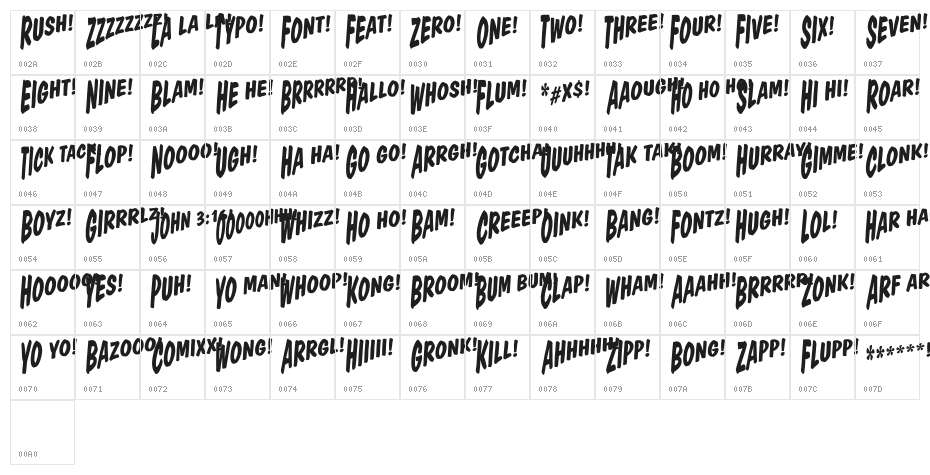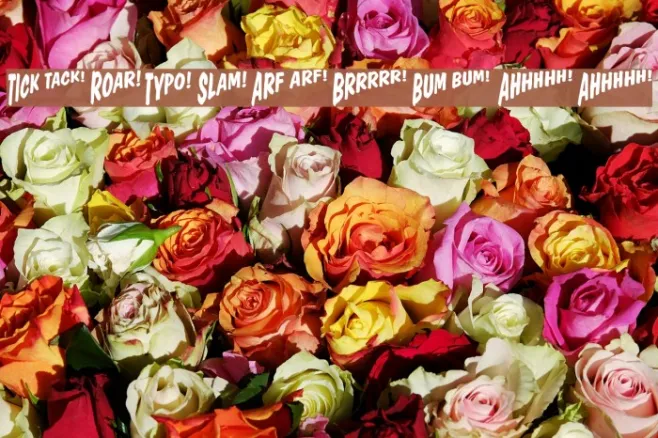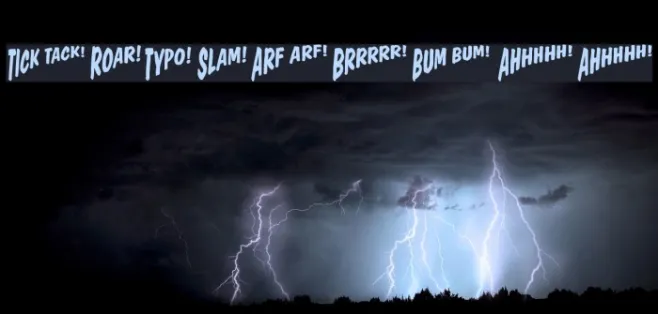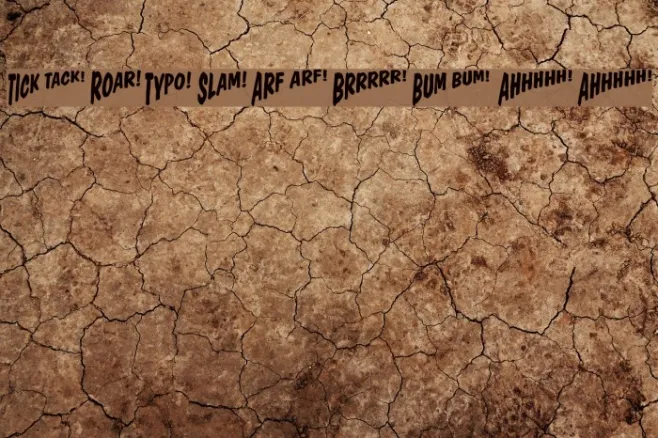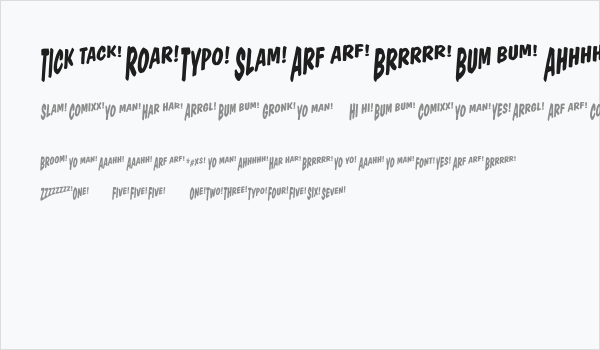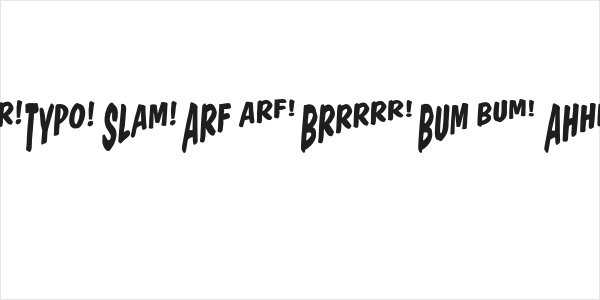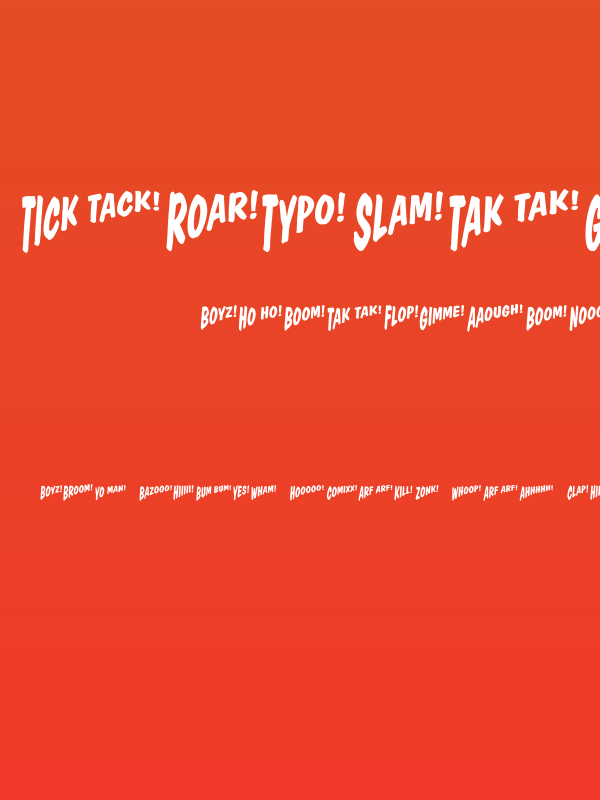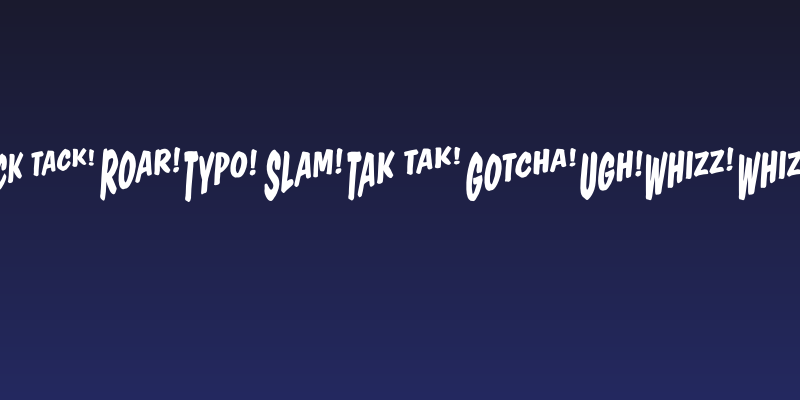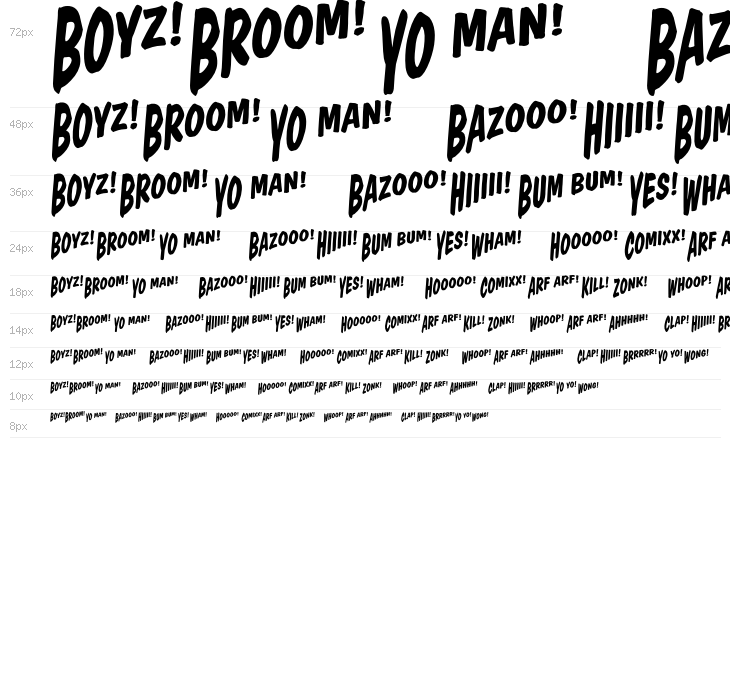
FE-Comixx Font
FE-Comixx Description
This dynamic and energetic font captures the essence of comic book style with its bold, exaggerated characters and playful design. Each letter is crafted with a sense of movement and excitement, making it perfect for conveying action and adventure. The font features irregular, jagged edges and varying stroke widths, adding to its lively and animated appearance. It is designed to grab attention and convey a sense of fun and spontaneity, ideal for creative projects that require a touch of humor and vibrancy.
| Overall Style | Comic, Playful, Energetic |
| Proposed Projects | Ideal for comic books, graphic novels, children's books, posters, and playful branding. |